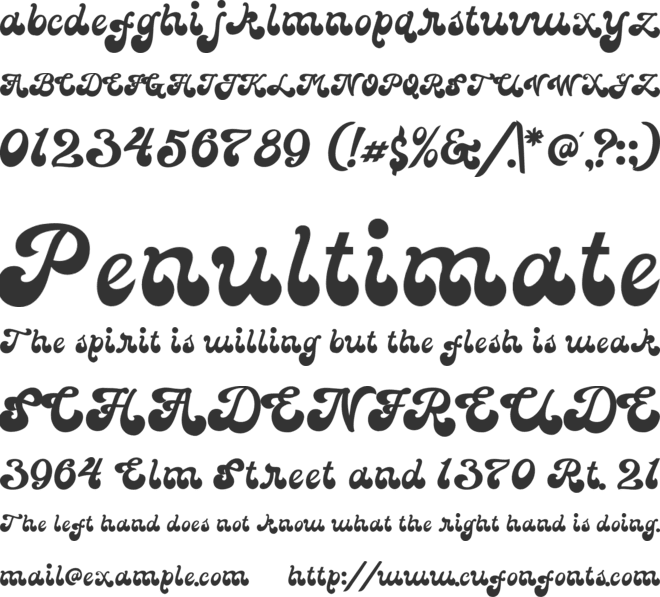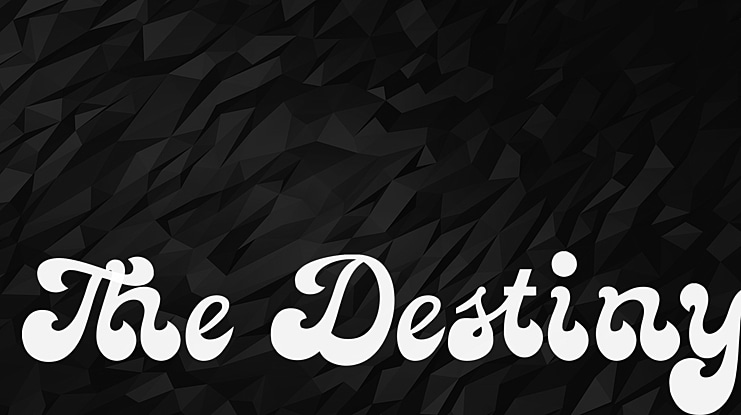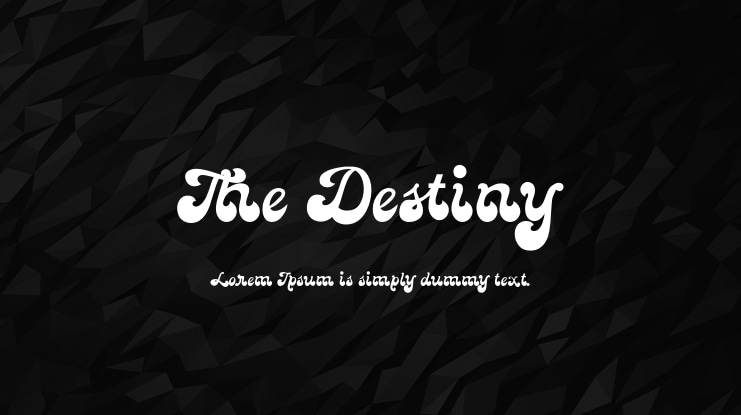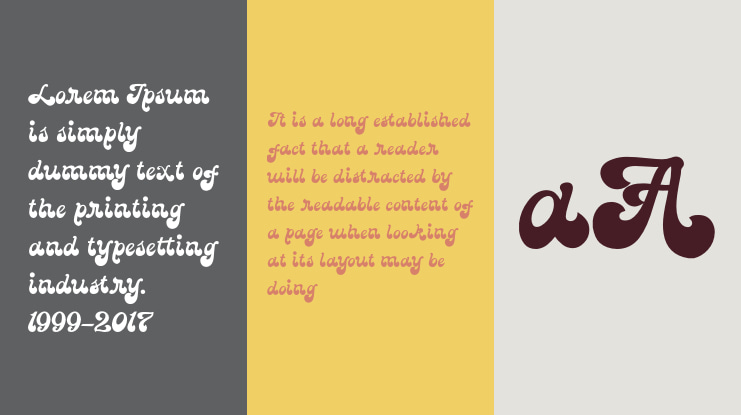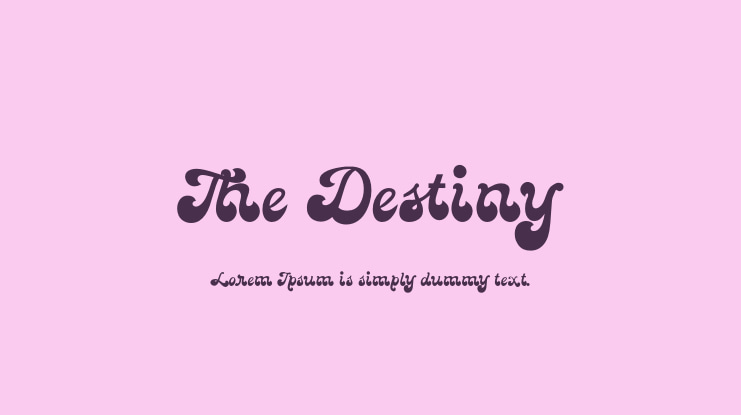
The Destiny Font
Display Studio
Introducing our new release, The Destiny Modern Display Typeface. This typeset is perfect for brand logo, invitations, greeting card, or even any kind of project. With multilingual feature and style variations, this typeface would further enhance the aestethical aspect of your work.Click our website :https://displaytypefont.com/product/the-destiny/